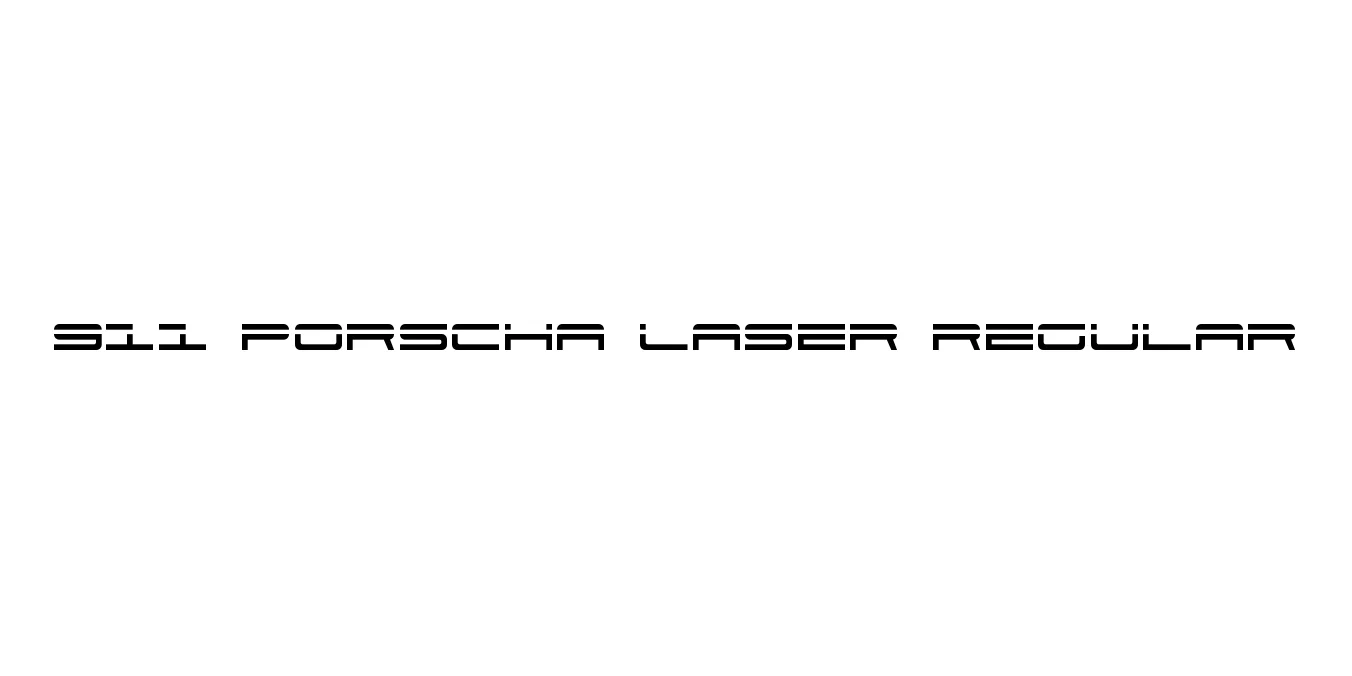
911 Porscha Laser Regular
Designed by Iconian Fonts (Dan Zadorozny)
| Category | Techno / Display |
| Designer | Iconian Fonts (Dan Zadorozny) |
911 Porscha Laser Regular is a wide, techno-styled display typeface designed by Dan Zadorozny of Iconian Fonts. This specific variant is heavily inspired by the iconic branding and logotype of the Porsche automotive company, characterized by its low-profile, extended horizontal footprint. The 'Laser' iteration features a distinctive horizontal stroke through the center of the characters, which creates an immediate sense of speed, motion, and futuristic technology.
As part of the larger 911 Porscha font family, this version excels in environments where a bold, high-performance aesthetic is required. Its geometric construction and sharp angles make it a staple for graphic designers working in the racing, gaming, and aerospace industries. Since its release, it has become one of the most recognizable automotive-themed display fonts, utilized extensively for digital interfaces, large-scale signage, and high-octane branding materials.
911 Porscha Laser Regular Best Uses
Ideal for car club logos, racing team identities, and performance vehicle decals.
Perfect for heads-up displays (HUD) and menu text in racing or sci-fi video games.
Creates a high-impact, modern look for tech expos, car shows, and action movie titles.
Suitable for technology startups and engineering firms seeking a fast, progressive image.